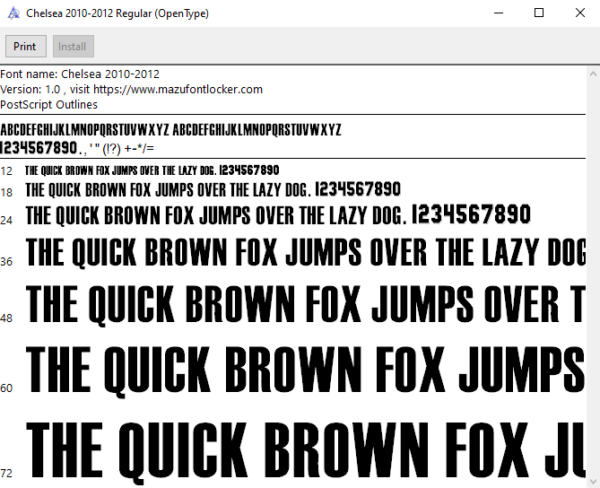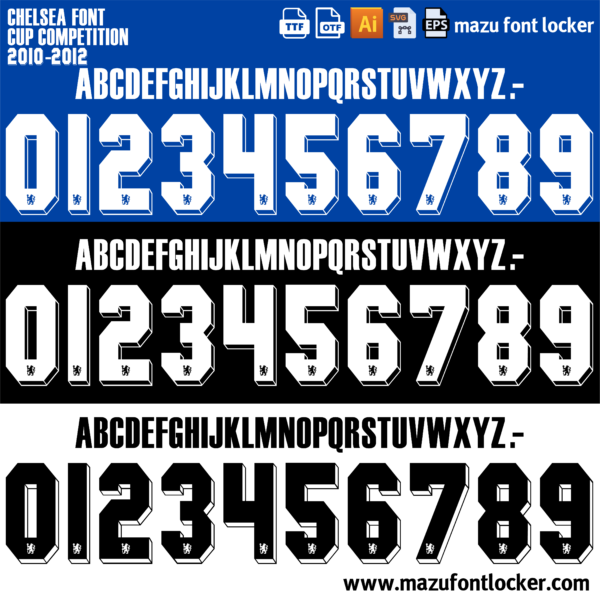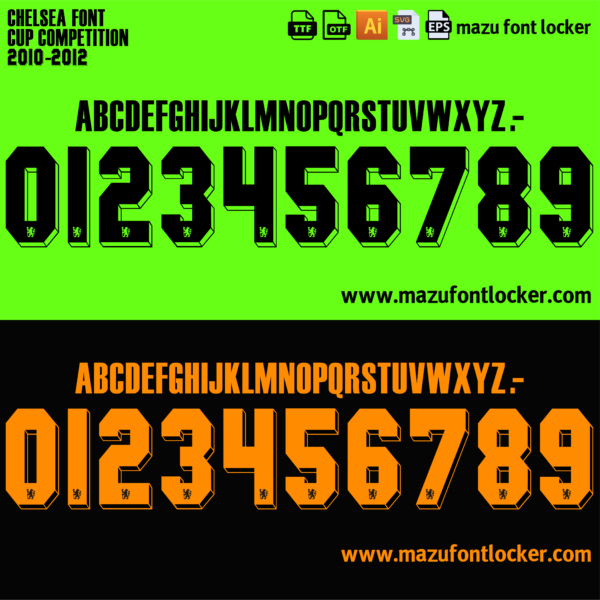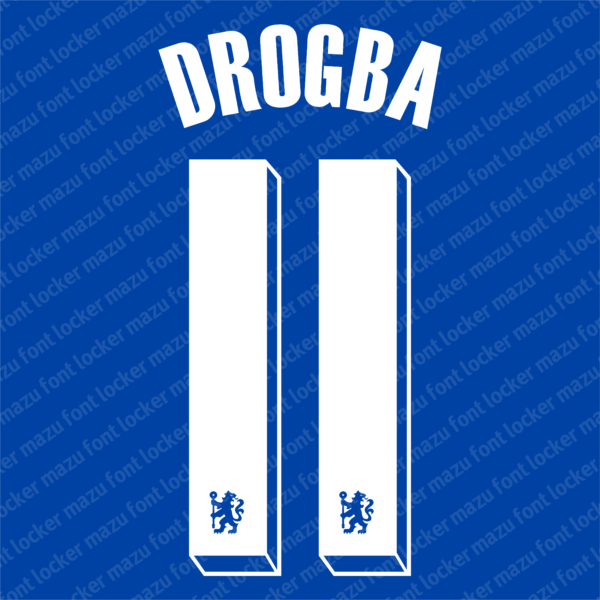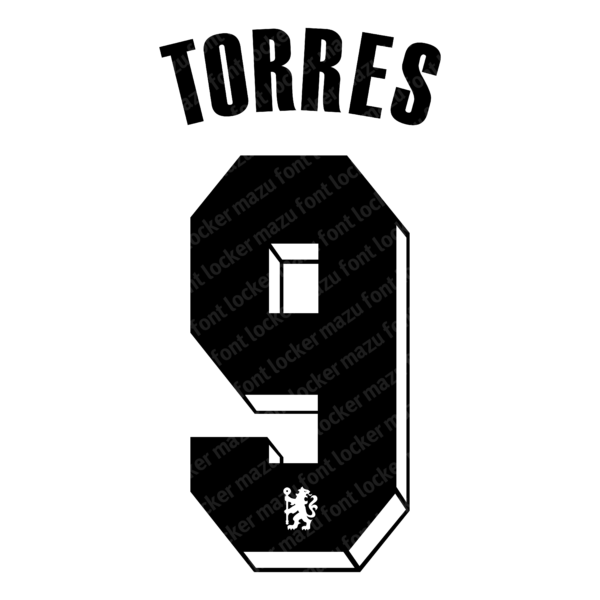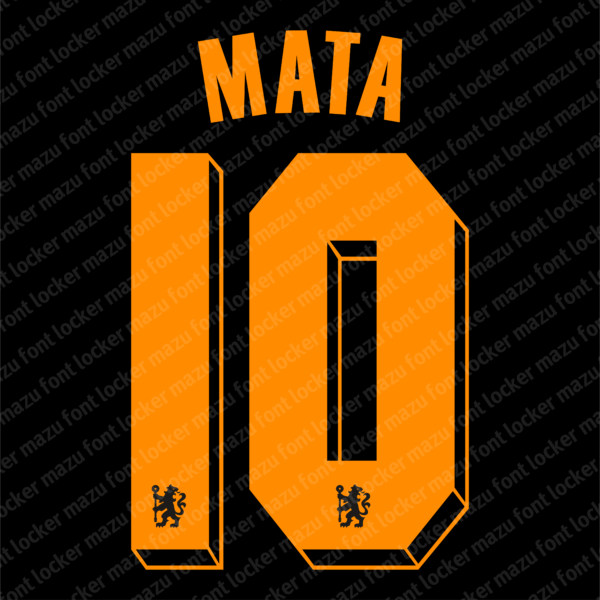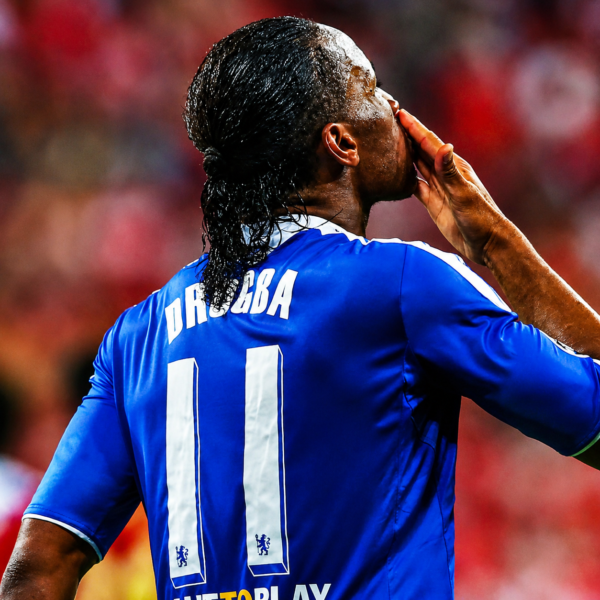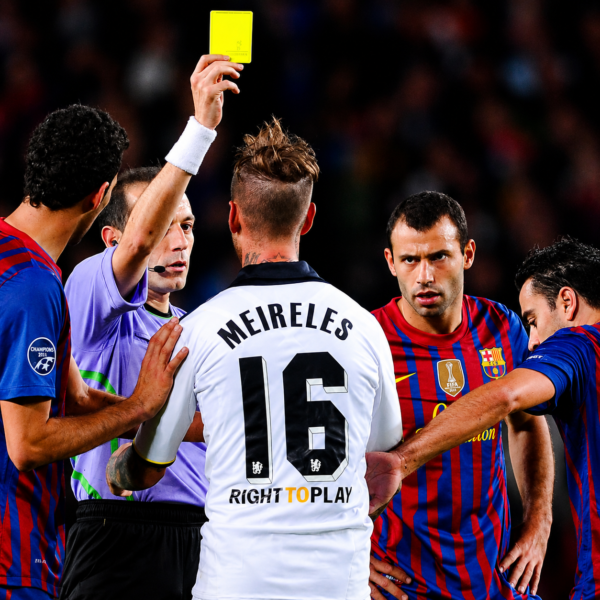
Chelsea 2010-2012 Font Vector – Triumphant Champions Masterpiece
Chelsea 2010-2012 Font – Authentic Blues Typeface
The Chelsea 2010-2012 Font is a premium typeface that accurately recreates the official match lettering worn by Chelsea FC during the memorable 2010-2012 seasons. This high-quality font kit captures the bold, clean, and iconic typography that represents one of the most successful periods in the club’s history.
Designed for professional designers and passionate Chelsea fans, the Chelsea 2010-2012 Font delivers perfect authenticity for creating retro jersey mockups, fan merchandise, matchday posters, social media graphics, and much more. It blends beautifully with the club’s legendary blue kits from that golden era.
Why Choose Chelsea 2010-2012 Font
This font stands out because of its sharp details and strong historical identity. Every letter and number is crafted to match the exact style used on the players’ shirts during the 2010-2012 seasons. Whether you are making realistic retro shirt templates or nostalgic football content, the Chelsea 2010-2012 Font gives your designs that authentic Blues look.
The letterforms in the Chelsea 2010-2012 Font are tall, bold, and highly readable. The strokes have a strong and controlled weight that looks powerful on the back of jerseys while maintaining excellent clarity and elegance.
The numerals use bold curves and firm edges, giving them a confident and premium appearance. This design ensures great legibility whether used in large print formats, digital mockups, or video content.
• Full uppercase A–Z and numbers 0–9 in authentic Chelsea 2010-2012 style
• Special Chelsea FC crest glyph for accurate shirt number detailing